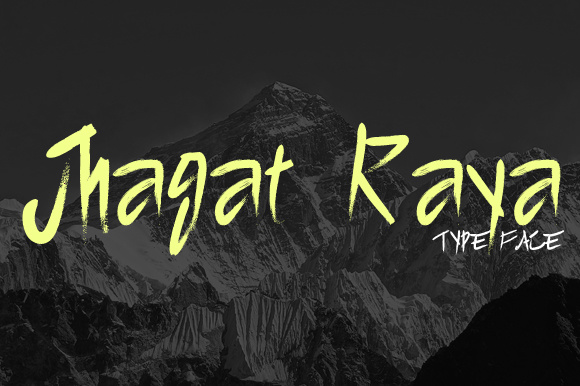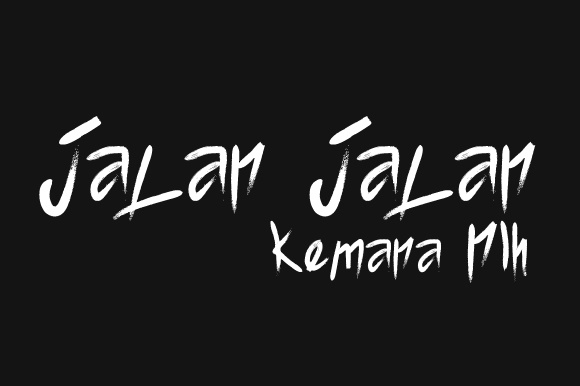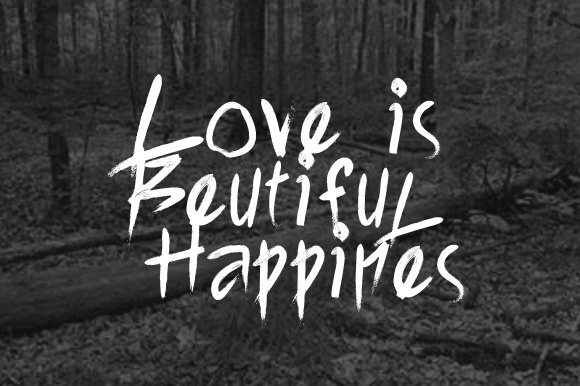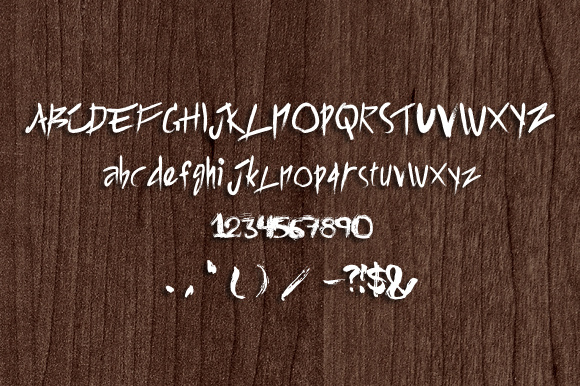
Jhagat Raya Font
About Jhagat Raya Font
Jhagat Raya is a simple hand graffiti font, perfect for use in projects that need a relaxed and approachable vibe. This script font has a brush stroke quality that is appealing in a wide range of works.